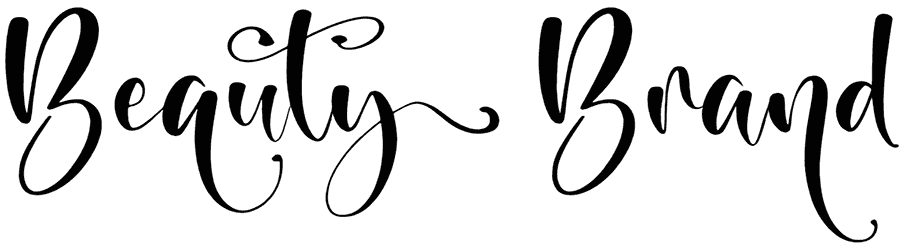
Beauty Brand Font
There are only a few fonts good enough to evoke a romantic tone while going with a handwritten outline. So you better not make the mistake of not adding Beauty Brand to your graphic tool.
With a combination of lowercase and uppercase letters, this feminine font via 2 styles works impeccably for fitting the bill in all kinds of illustrations. Cards, posters, T-shirts, and social media posts are just a few to name, but you catch the main idea yourself.